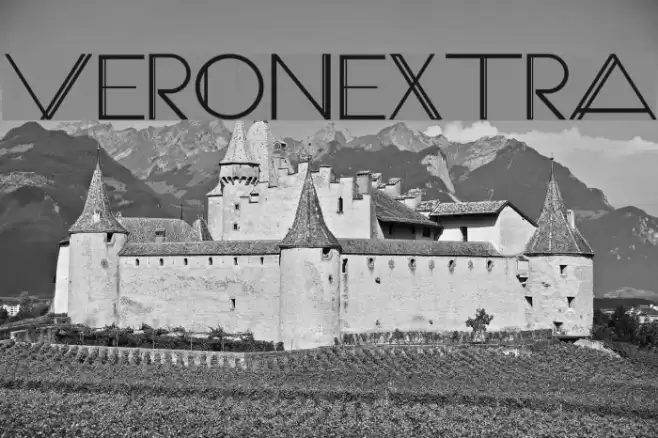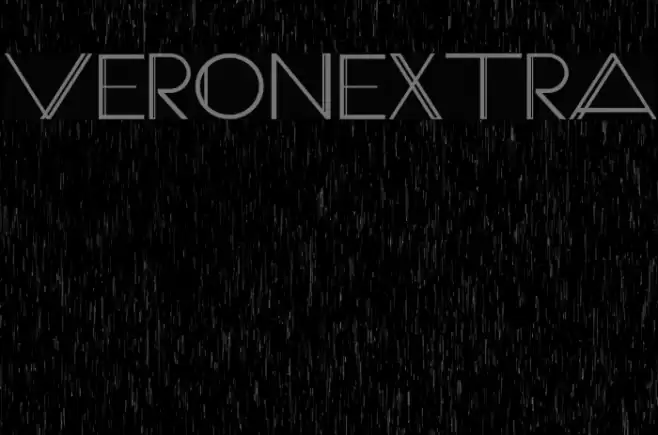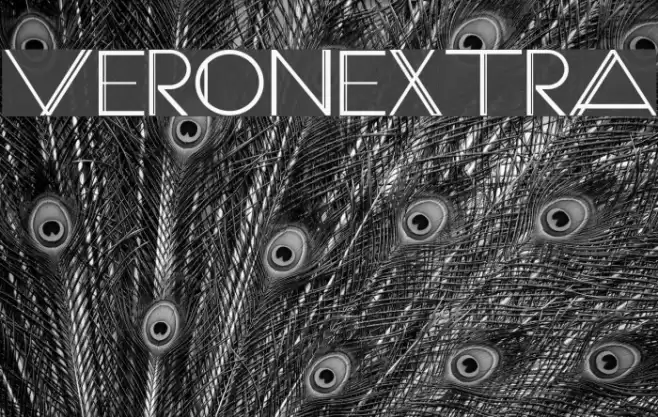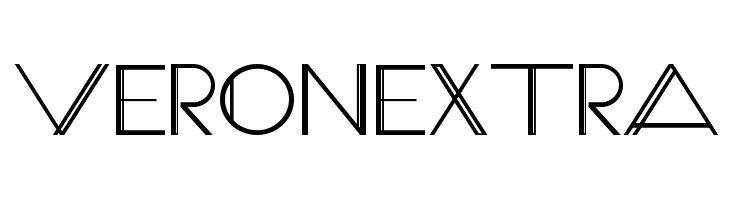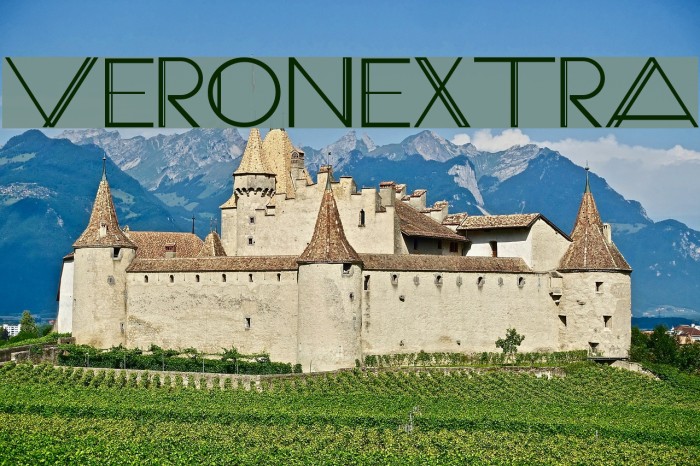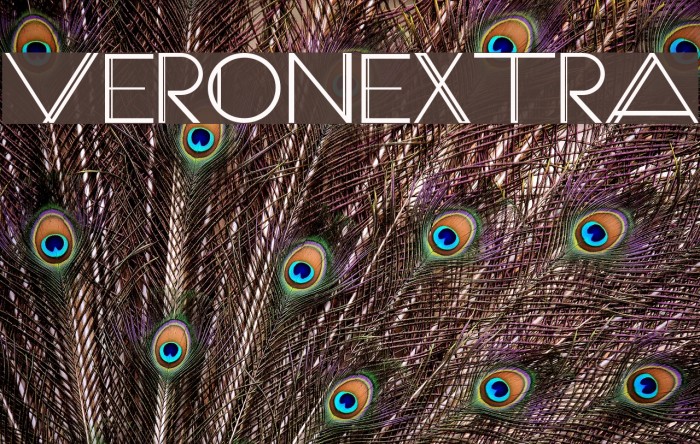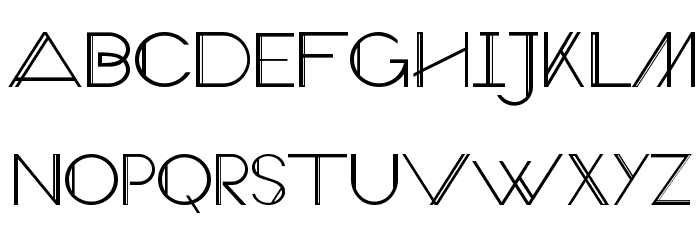
VeronExtra Font
VeronExtra Description
This font exhibits a unique and modern design with geometric elements and sharp angles. The uppercase letters are characterized by clean lines and a distinct angular style, creating a futuristic and sophisticated appearance. The lowercase letters maintain this geometric theme, offering a consistent look across the alphabet. The numerals are designed with the same angular precision, ensuring readability while maintaining the font's distinctive style. Special characters are integrated seamlessly, providing a cohesive and versatile typeface suitable for various applications.
A modern, geometric font with sharp angles and clean lines from Uncategorized fonts.
- Proposed Projects: Ideal for branding, logos, and headlines where a modern and sophisticated look is desired.
- Use Case: Logos, Headlines